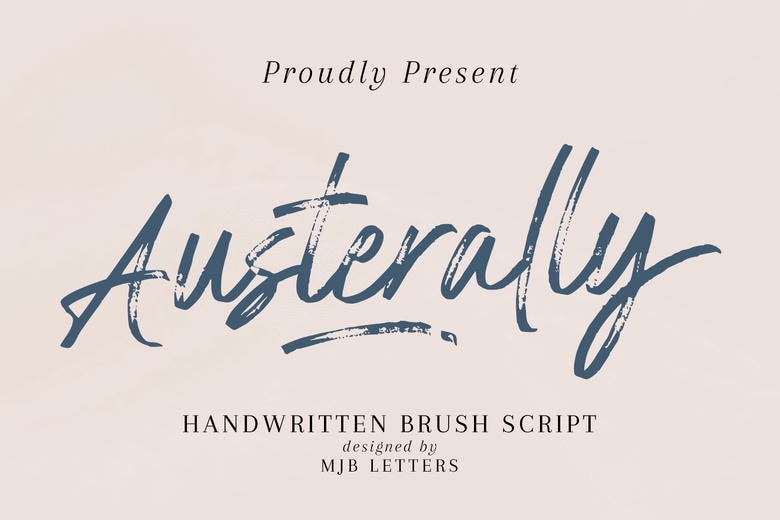
Austerally Font
Austerally handwritten brush script font is a modern, casual, and authentic font designed to bring creativity and personality to your projects. With its smooth strokes and natural flow, Austerally font captures the essence of handwritten artistry while maintaining a clean, professional look. It’s perfect for adding a touch of uniqueness and elegance to your designs, ensuring they stand out in any context.
Austerally Brush Script Font